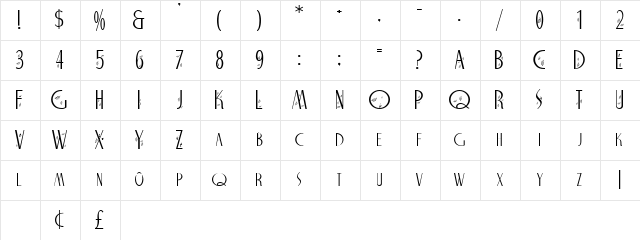
Autumn Nights Regular Free Font
Autumn Nights Regular
Design Context for Autumn Nights
Autumn Nights is a composed and adaptable typeface that performs quietly and consistently across a wide range of design contexts.